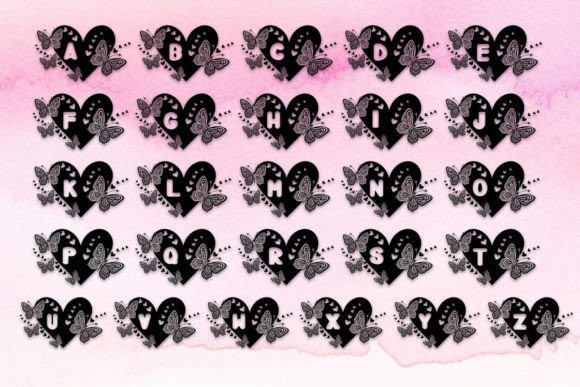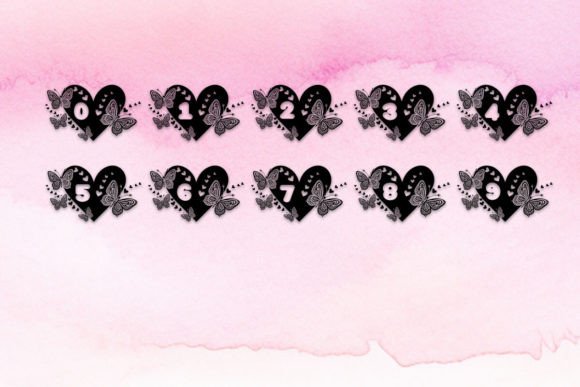
Introducing Full of Love Font: Elevate Your Designs with Romance and Elegance
In the world of design, typography plays a crucial role in conveying emotions and messages. For those seeking to infuse their projects with a touch of romance and elegance, the “Full of Love Font” is a captivating choice. This charming set of 36 characters, including 26 uppercase letters and numbers 0-9, is meticulously designed to bring a sense of love and sophistication to any design.
The Essence of Full of Love Font
The “Full of Love Font” is not just a collection of characters; it’s an experience. Each letter and number is carefully crafted with intricate heart symbols and enchanting butterfly patterns. These design elements work harmoniously to create a typography that exudes romance, warmth, and elegance. Whether you’re crafting expressive messages, romantic designs, or any project that seeks to embrace love and elegance through typography, this font is perfect.
Design Features
- Comprising 36 Characters: The “Full of Love Font” includes 26 uppercase letters and numbers 0-9, providing a comprehensive set for your design needs.
- Intricate Heart Symbols: Each character is adorned with delicate heart symbols, adding a touch of love and warmth to your designs.
- Enchanting Butterfly Patterns: The incorporation of butterfly patterns brings a sense of grace and elegance, making this font suitable for romantic and sophisticated projects.
Perfect for Various Projects
The versatility of the “Full of Love Font” makes it suitable for a wide range of projects. Here are some ideas to get you started:
- Romantic Invitations: Create stunning wedding invitations, Valentine’s Day cards, or anniversary messages that capture the essence of love.
- Elegant Stationery: Add a touch of sophistication to your stationery, making it perfect for personal or business use.
- Social Media Graphics: Elevate your social media posts with beautiful typography that conveys love and elegance.
- Branding and Packaging: For businesses focusing on love, beauty, or lifestyle products, this font can be a unique addition to your brand’s typography.
Why Choose Full of Love Font?
In a sea of fonts, “Full of Love Font” stands out for its unique design and emotional appeal. Here are a few reasons why designers and crafters prefer this font:
- Unique Design: The intricate details and patterns make this font one-of-a-kind, ensuring your designs stand out.
- Emotional Connection: The font’s romantic and elegant feel helps create an emotional connection with your audience.
- Versatility: Suitable for digital and print projects, offering flexibility in your design work.
“Full of Love Font” is more than just a typography; it’s a way to convey love, elegance, and romance in your designs. With its intricate heart symbols, enchanting butterfly patterns, and comprehensive set of characters, this font is perfect for designers and crafters looking to add a touch of sophistication and emotion to their work. Whether you’re creating romantic invitations, elegant stationery, or social media graphics, “Full of Love Font” is your go-to choice for making a lasting impression.